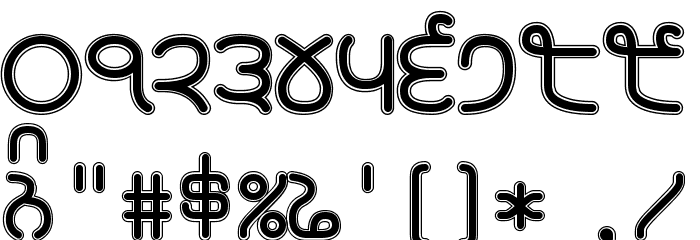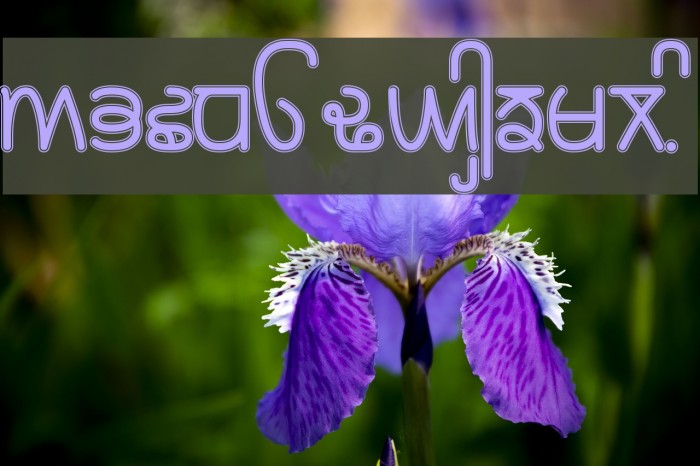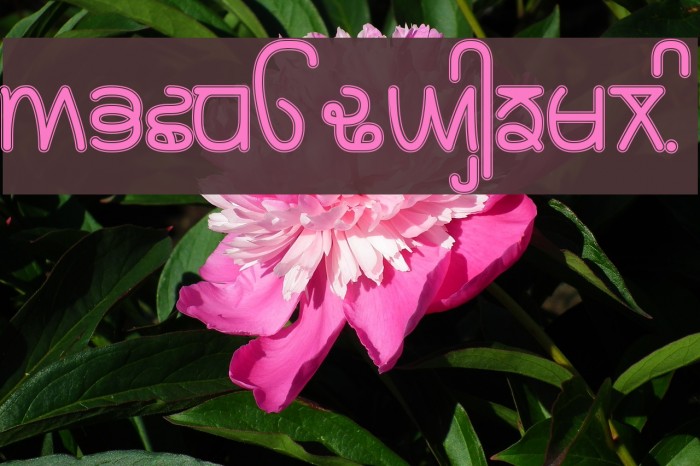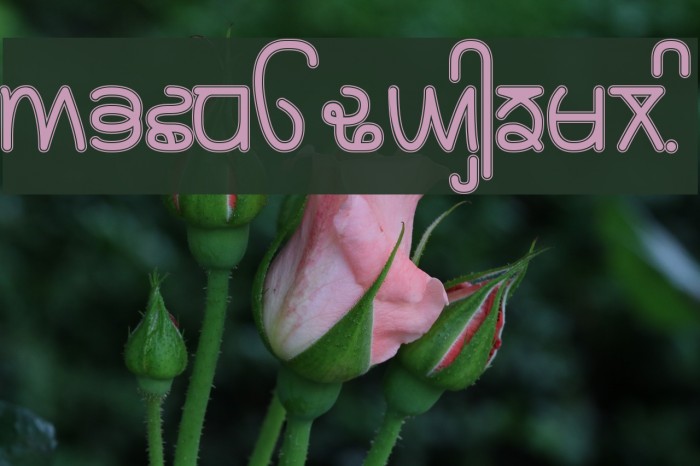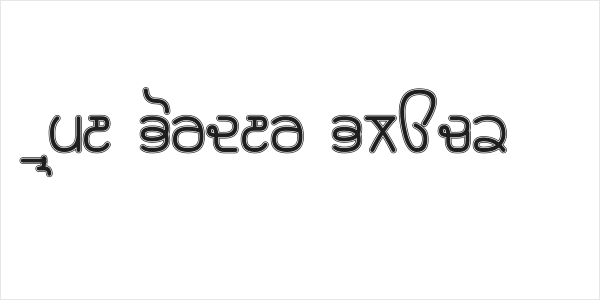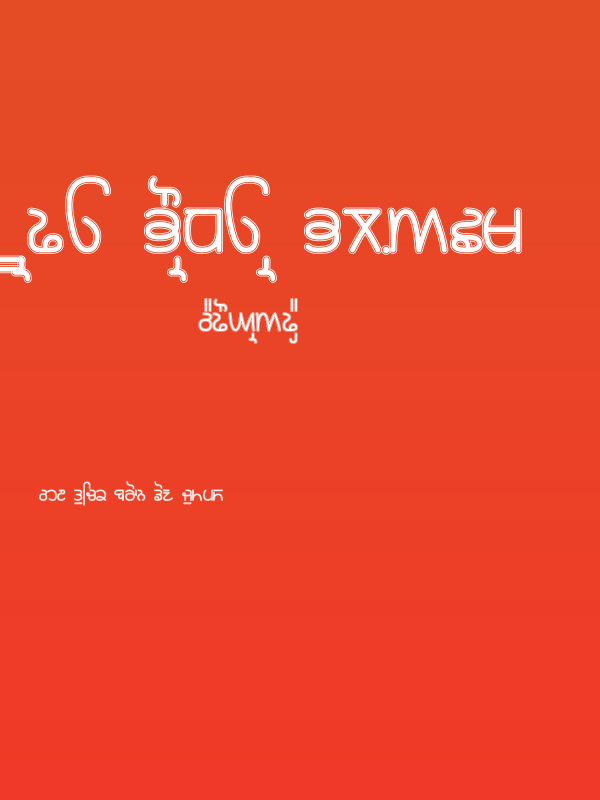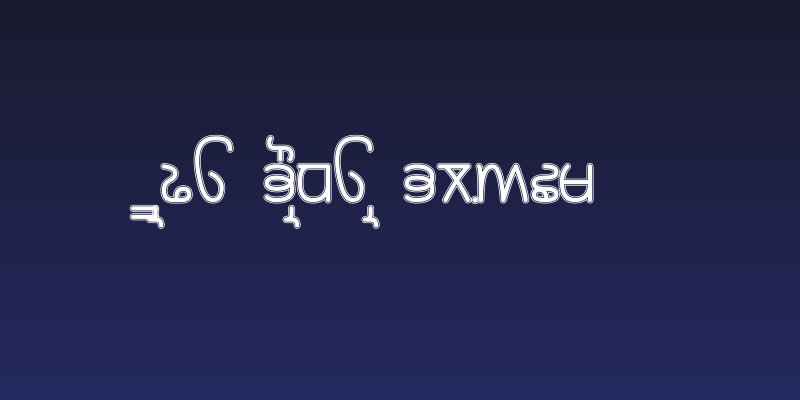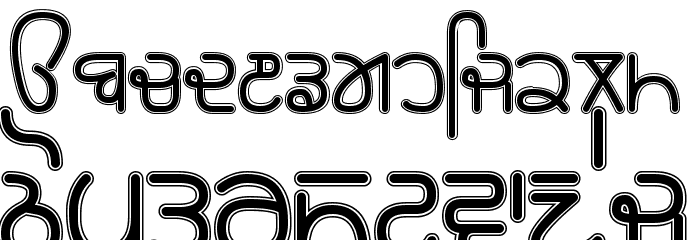
Rupe Border Black Font
Rupe Border Black Description
This font features a unique and decorative style with a bold, outlined appearance. The characters are designed with a double-line effect, creating a striking visual impact. The letters have a rounded, almost bubble-like form, giving them a playful and artistic feel. The overall design is highly stylized, making it suitable for creative and eye-catching projects. The font maintains consistent thickness throughout, providing a uniform look across all characters. Its distinct style is perfect for making a statement in any design.